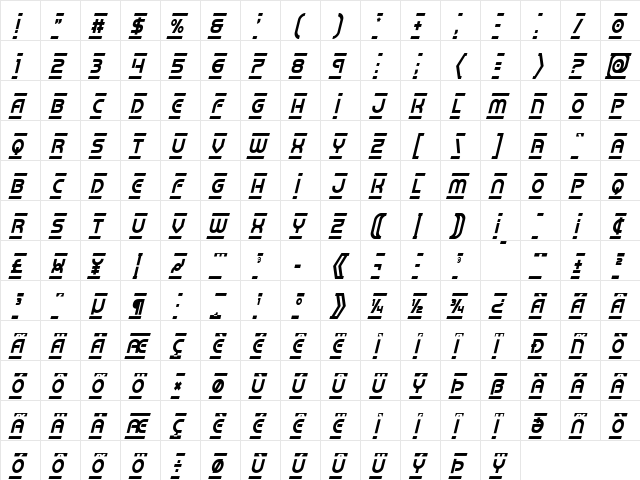
Barcade Condensed Italic Condensed Italic
Design Context for Barcade Condensed Italic Typeface
Barcade Condensed Italic is a composed and adaptable typeface that performs quietly and consistently across a wide range of design contexts. The slanted form adds forward momentum and visual energy. The condensed width makes it efficient for tight spaces without sacrificing legibility.
Pro Tip: Use Barcade Condensed Italic for emphasis, pull quotes, and subheadings where its slanted energy can add rhythm to the layout.